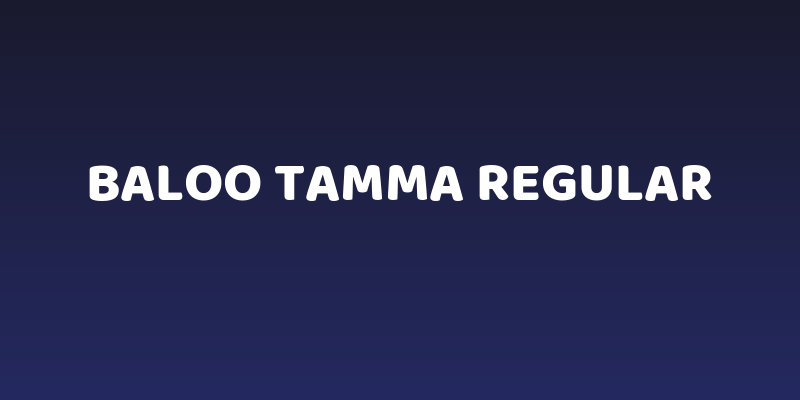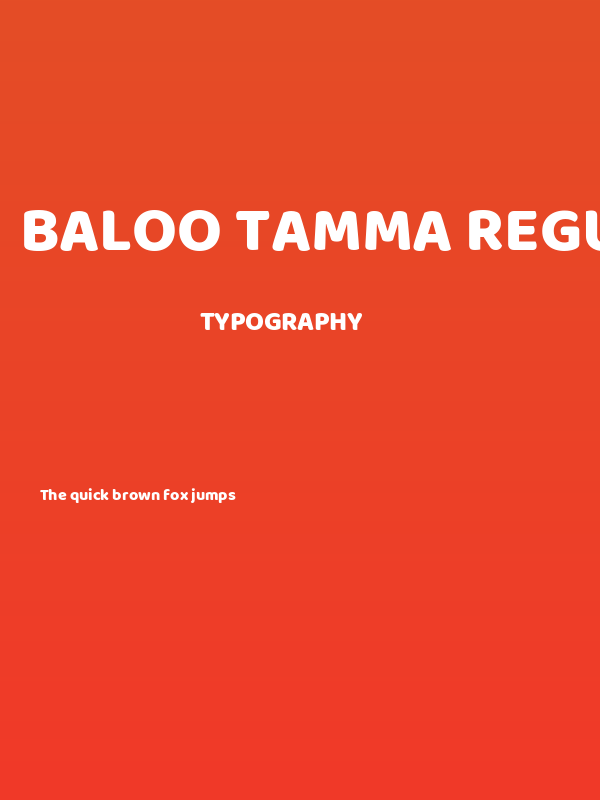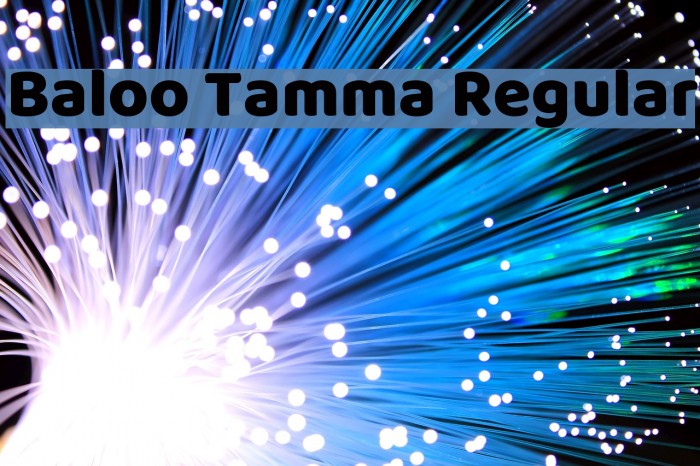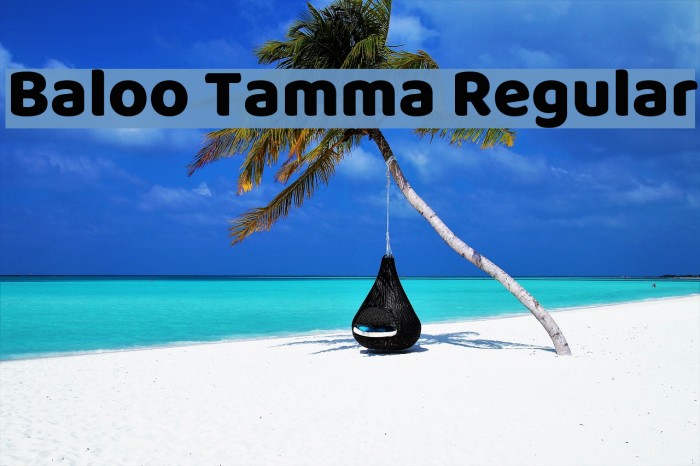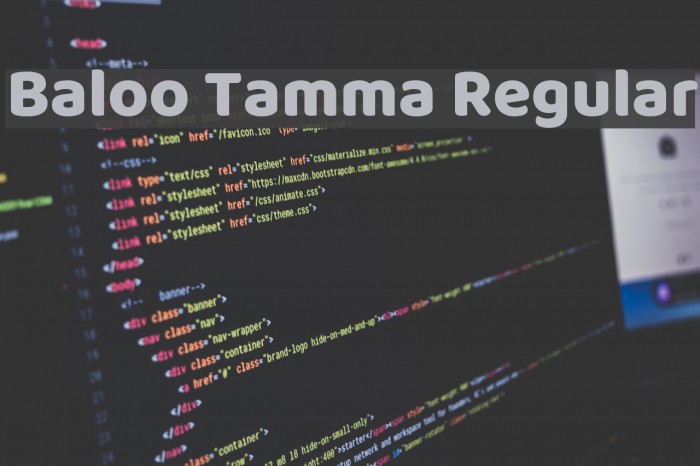
Baloo Tamma Regular Font
Baloo Tamma Regular Description
This font features a playful and rounded design, characterized by its bold and friendly appearance. The letters are thick and have a smooth, uniform stroke width, giving it a modern and approachable feel. The rounded edges and consistent curves contribute to its inviting and informal style, making it ideal for projects that require a touch of whimsy and warmth. The numerals and special characters maintain the same rounded and bold characteristics, ensuring a cohesive look across all text elements. This font is particularly suitable for children's books, playful branding, and any design that seeks to convey a sense of fun and friendliness.
| Overall Style | Playful |
| Proposed Projects | Children's books, playful branding, casual invitations, and fun posters. |